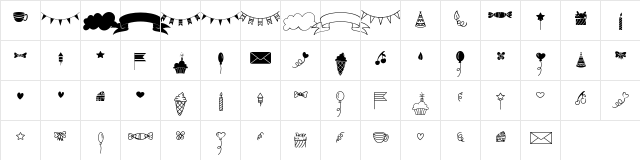
Habede Extra Doodles Regular
| Foundry | 7NTypes |
| Designer | Rifki; Situjuh Nazara |
Design Context for Habede Extra Doodles Typeface
Habede Extra Doodles is a composed and adaptable typeface that performs quietly and consistently across a wide range of design contexts.